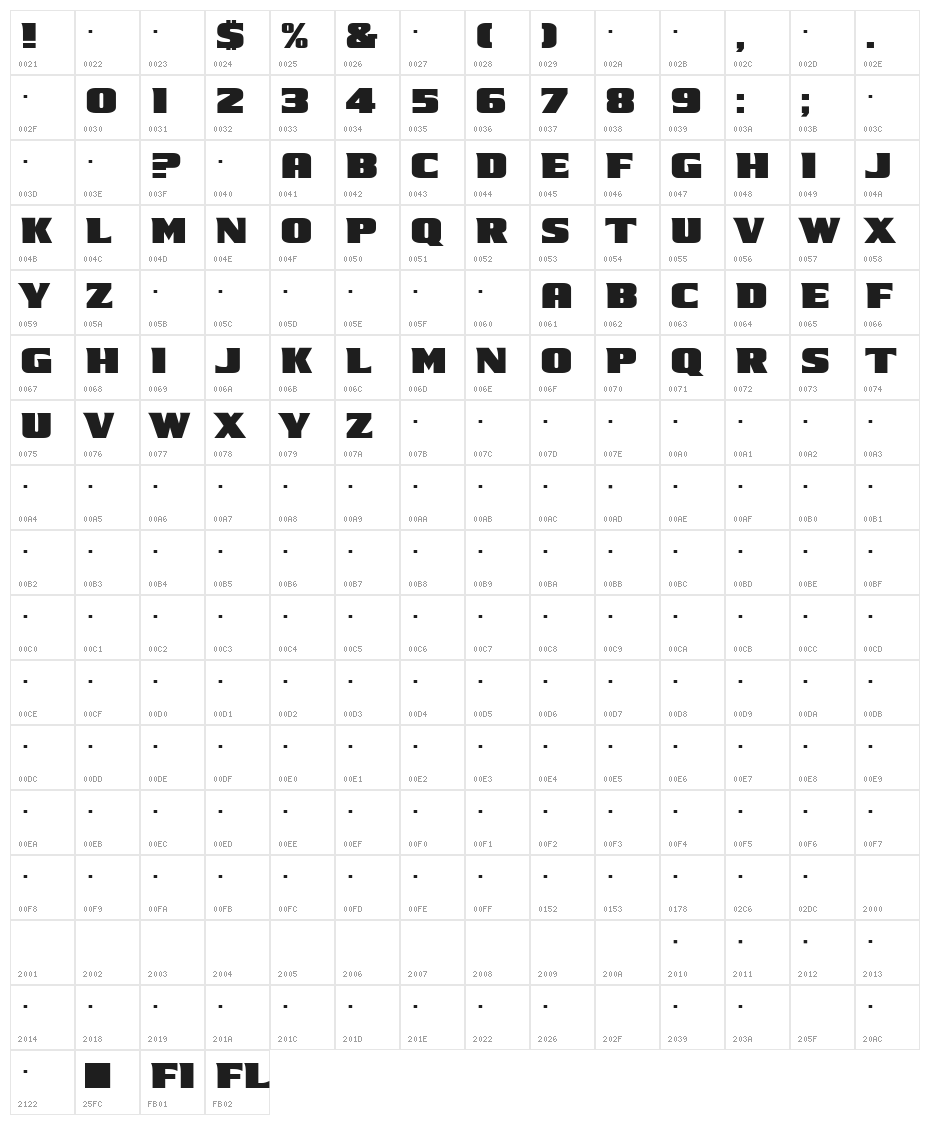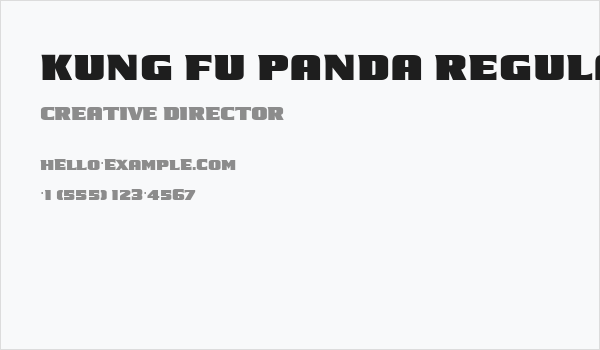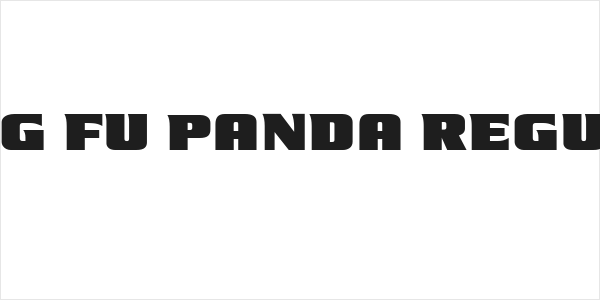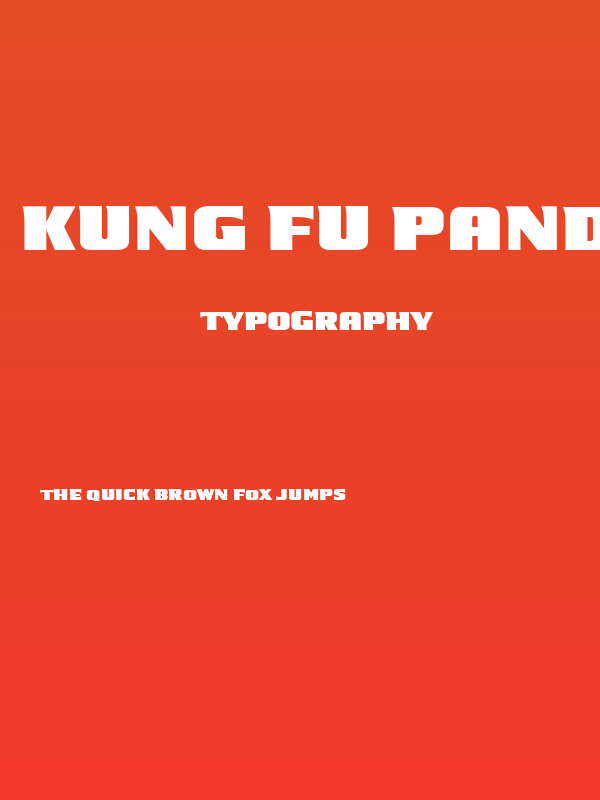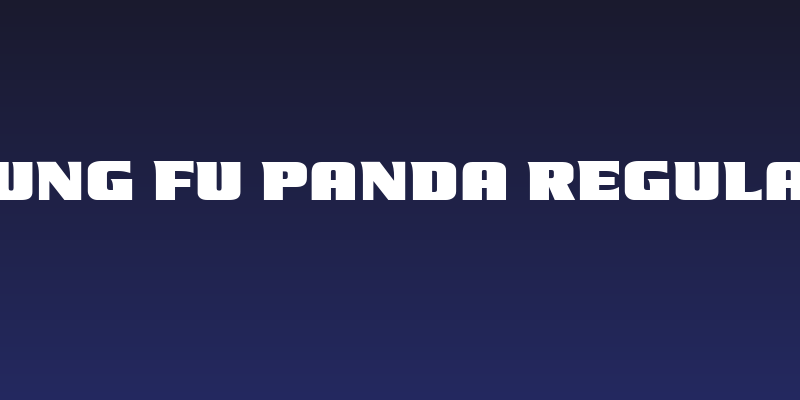
Kung Fu Panda Regular Font
Kung Fu Panda Regular Description
This font features a bold and impactful style with thick, blocky characters that convey strength and presence. The uppercase letters are robust, with a slight curvature that adds a dynamic feel. The numbers and special characters maintain this boldness, ensuring consistency across all glyphs. The font's design is reminiscent of martial arts themes, with a strong, confident appearance that makes it ideal for attention-grabbing headlines or thematic designs.